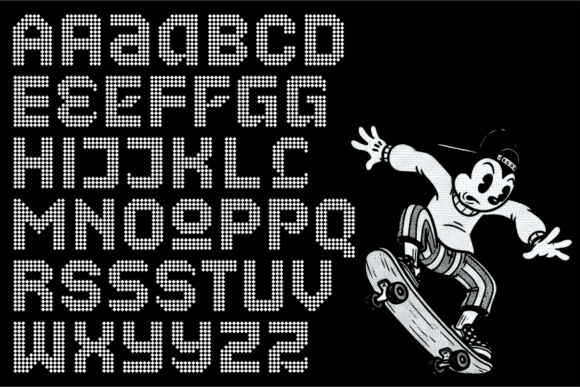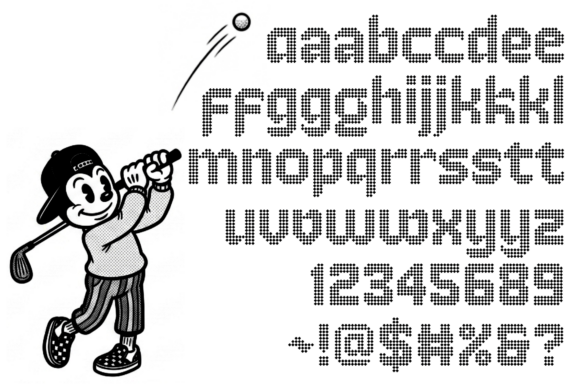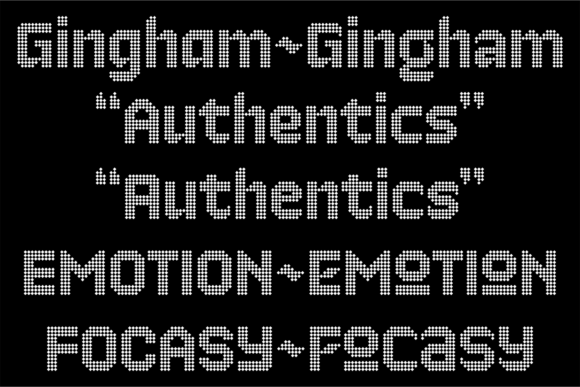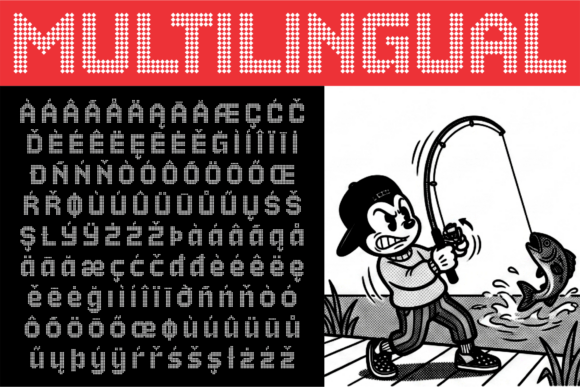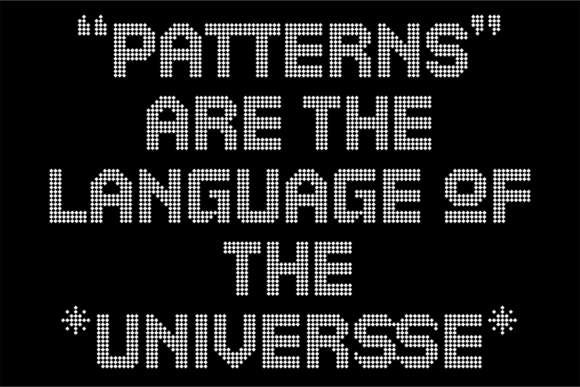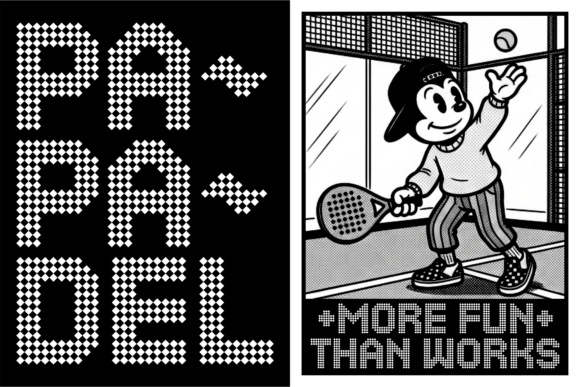
Introduction to Ottacs Font
This typeface is a striking fusion of textile heritage and digital precision, drawing direct inspiration from the classic argyle pattern.
By utilizing a meticulous grid of tilted squares, each character is constructed through a rhythmic arrangement of diamond shapes This geometric foundation creates a unique โknittedโ aesthetic, where the negative space between the diamonds mimics the intricate weave of traditional hosiery and knitwear.
Key Features of Ottacs Font